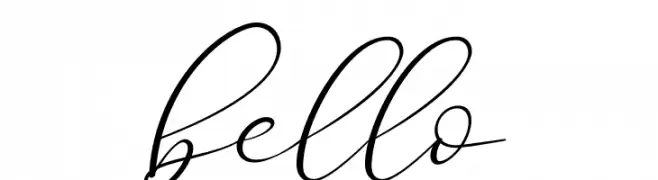
A sleek, modern font with geometric lines and rounded edges.
A playful, handwritten font with dynamic strokes and a casual feel.
A graceful script font with fluid, cursive strokes and elegant flourishes.
A playful, handwritten script font with tall, narrow letters and smooth strokes.
A bold, dramatic font with unique inward curves, perfect for headlines.
A bold, playful script font with energetic and expressive characters.
A jagged, distressed font ideal for horror themes.
A playful, handwritten script font with bold, fluid strokes.
A bold, expressive handwritten font with dynamic strokes and artistic flair.
A dynamic and fluid script font with elegant, flowing lines and cursive letterforms.